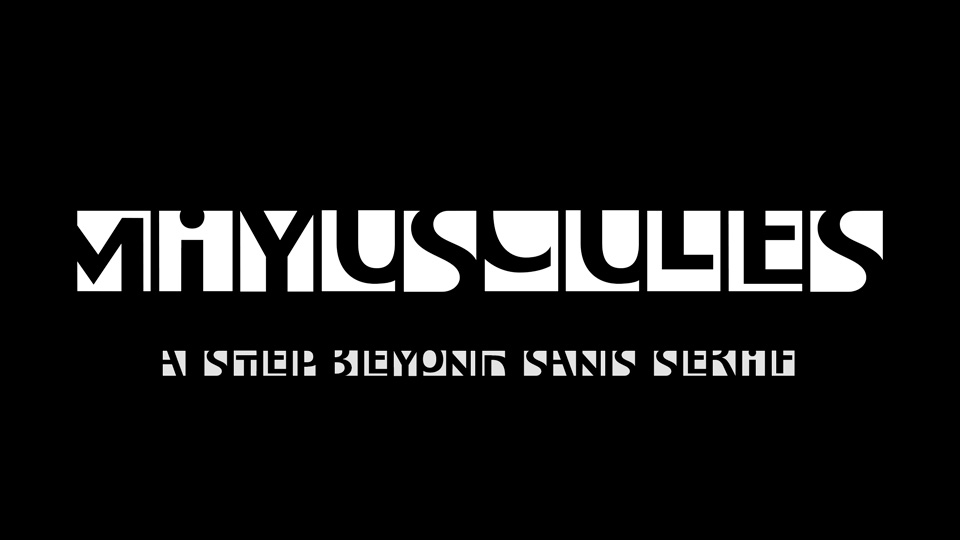
Download Miyuscules font, a step beyond sans serif typeface, an experimental typography research of concept of black and white typography introducing a new structural concept.
Designer: Carolina Short